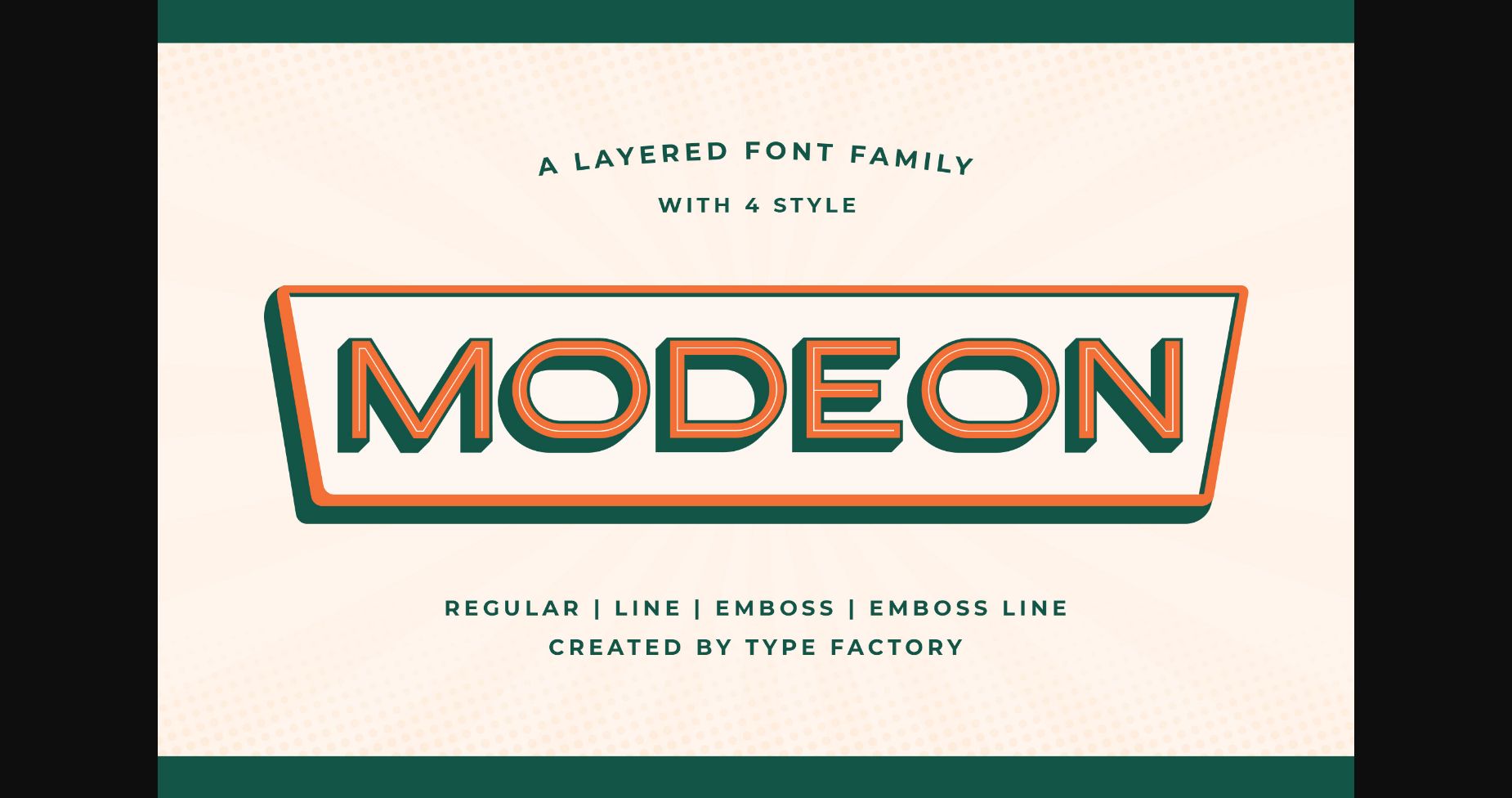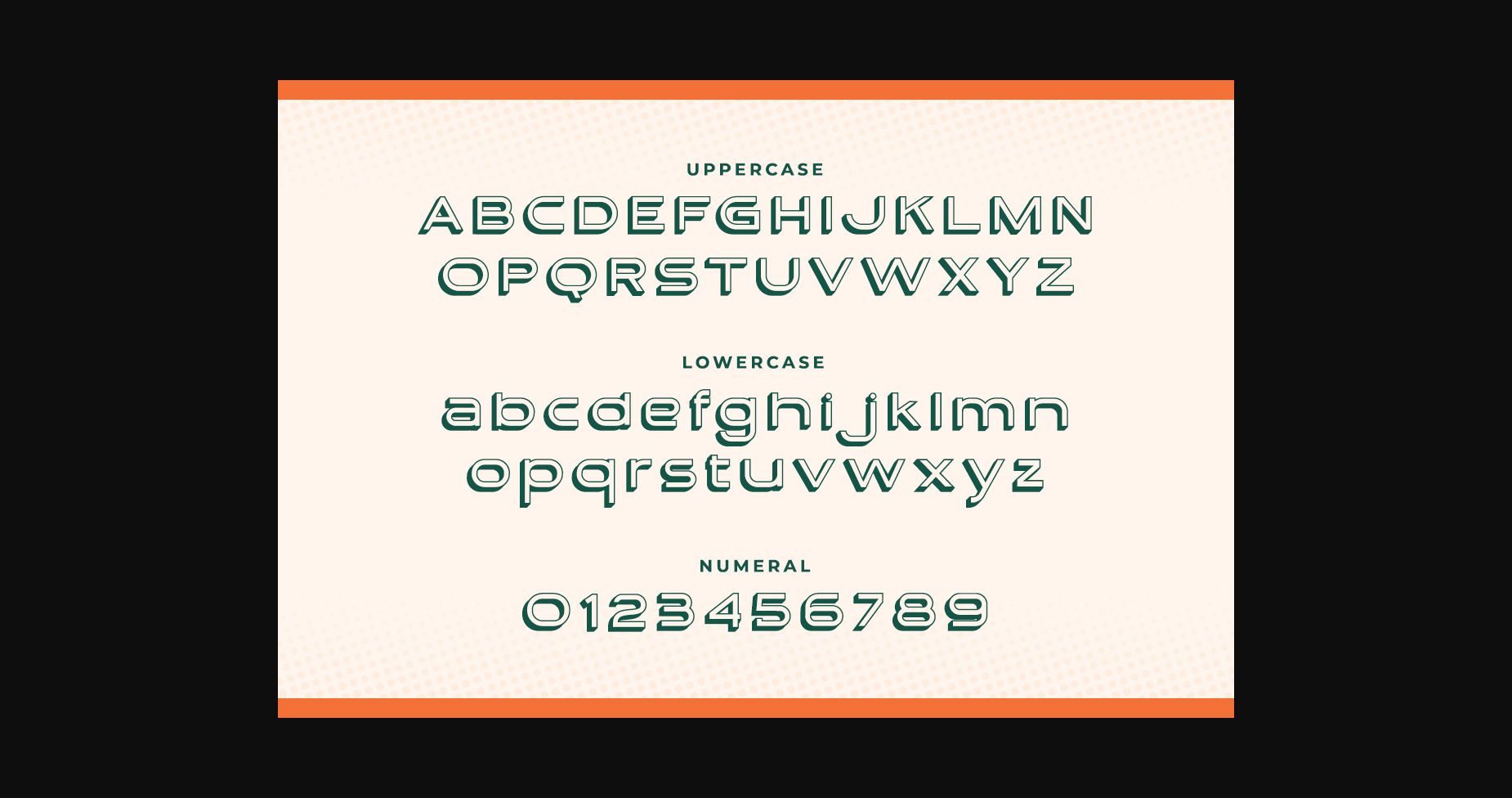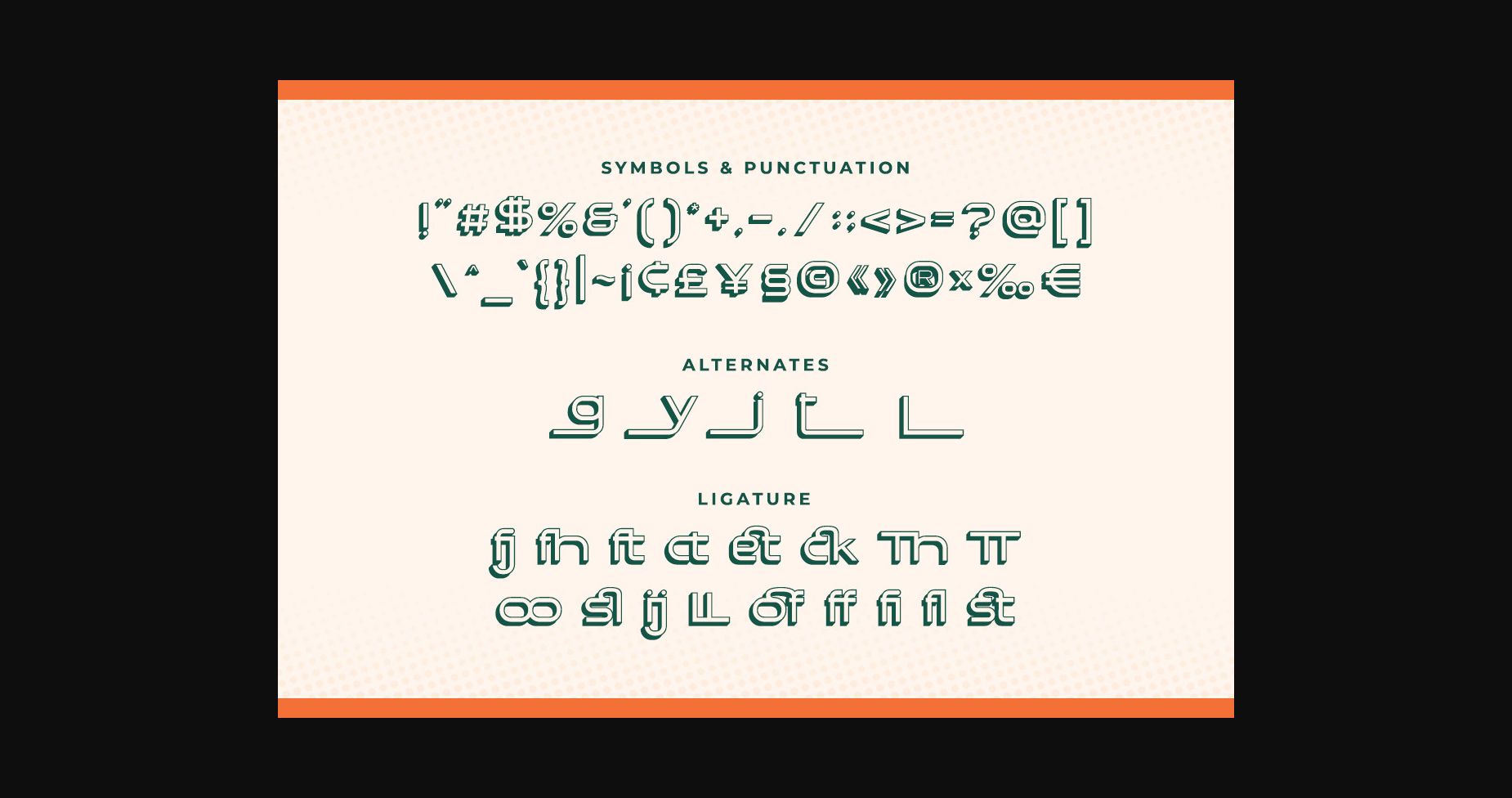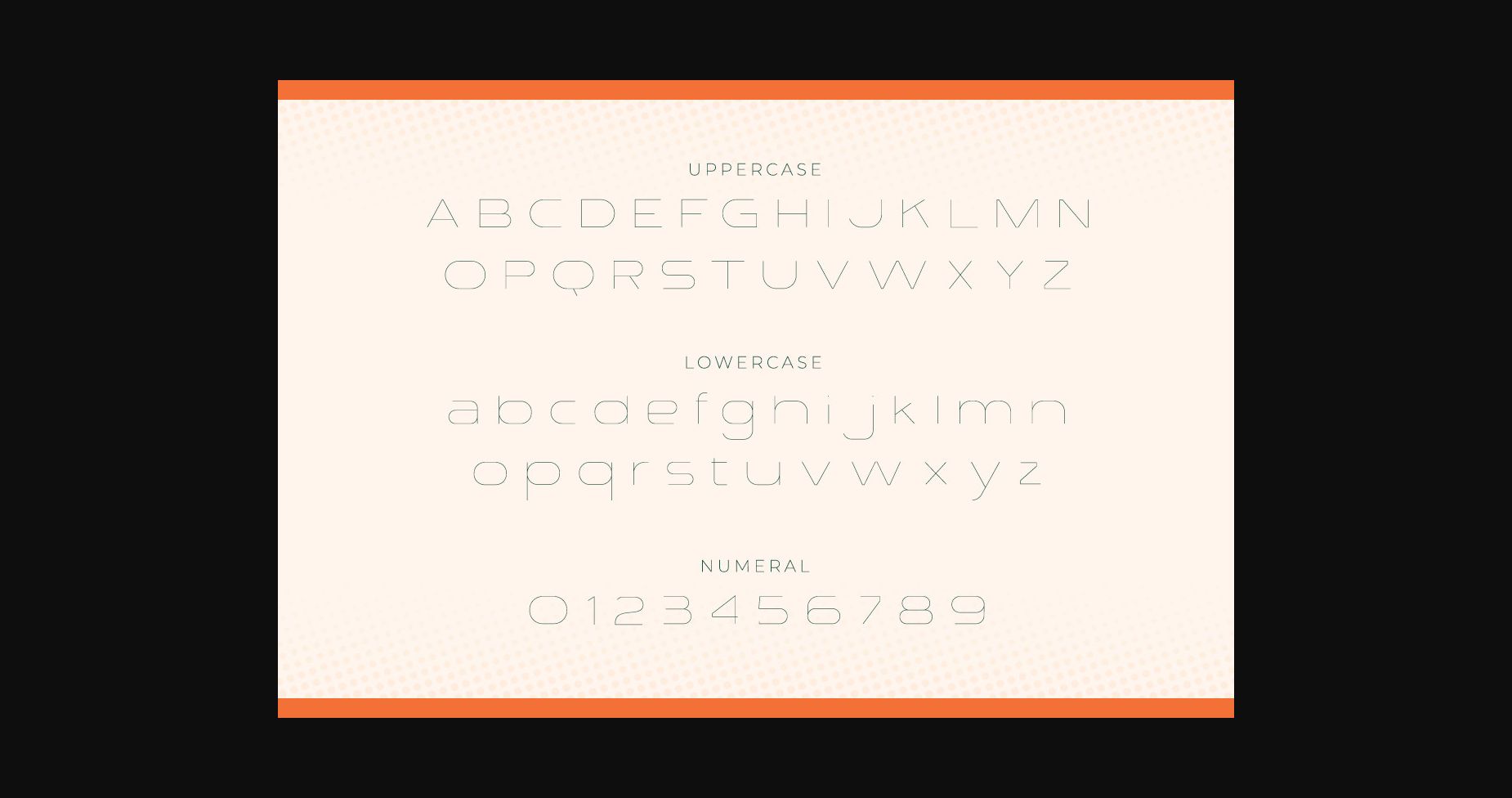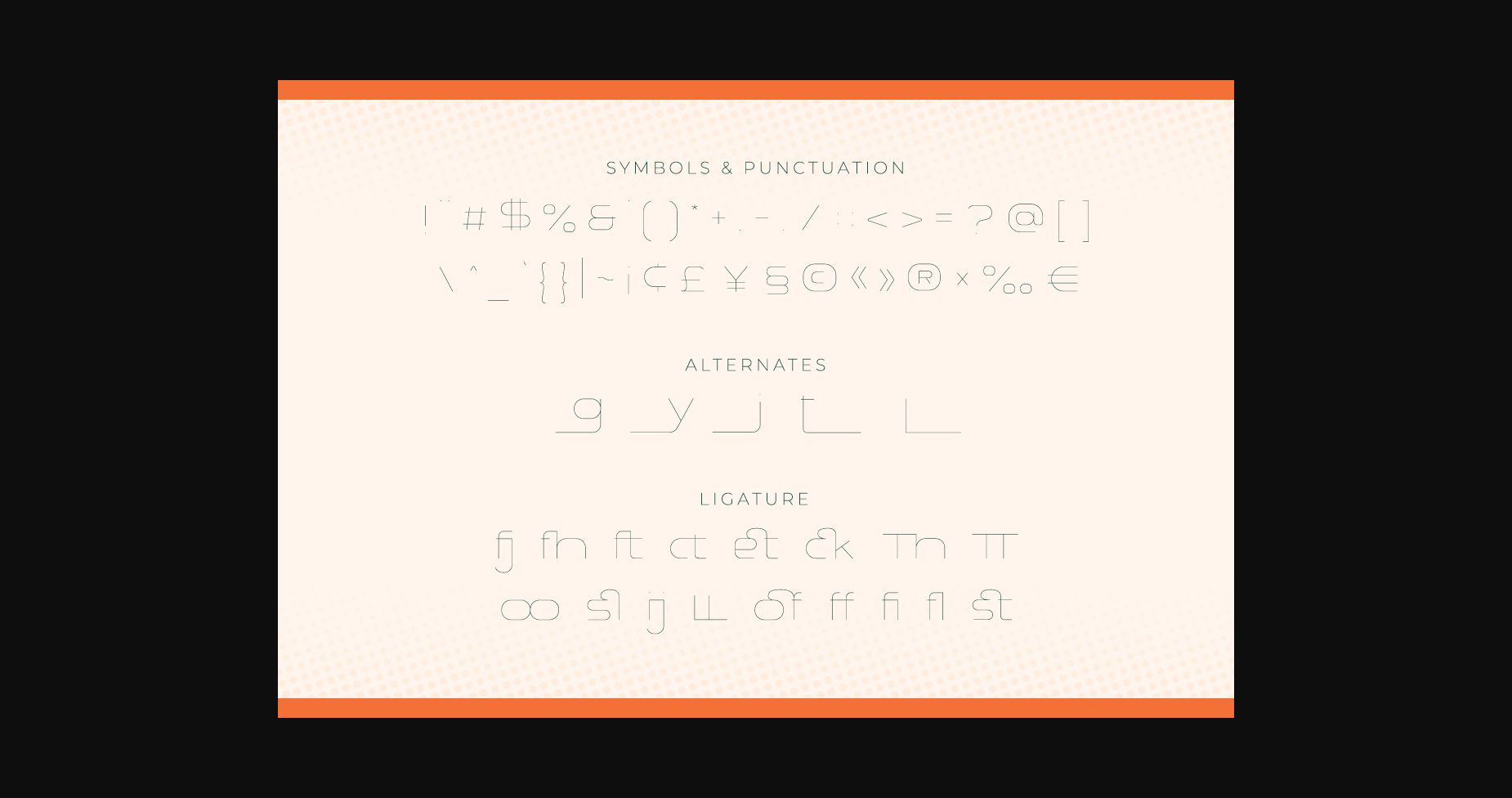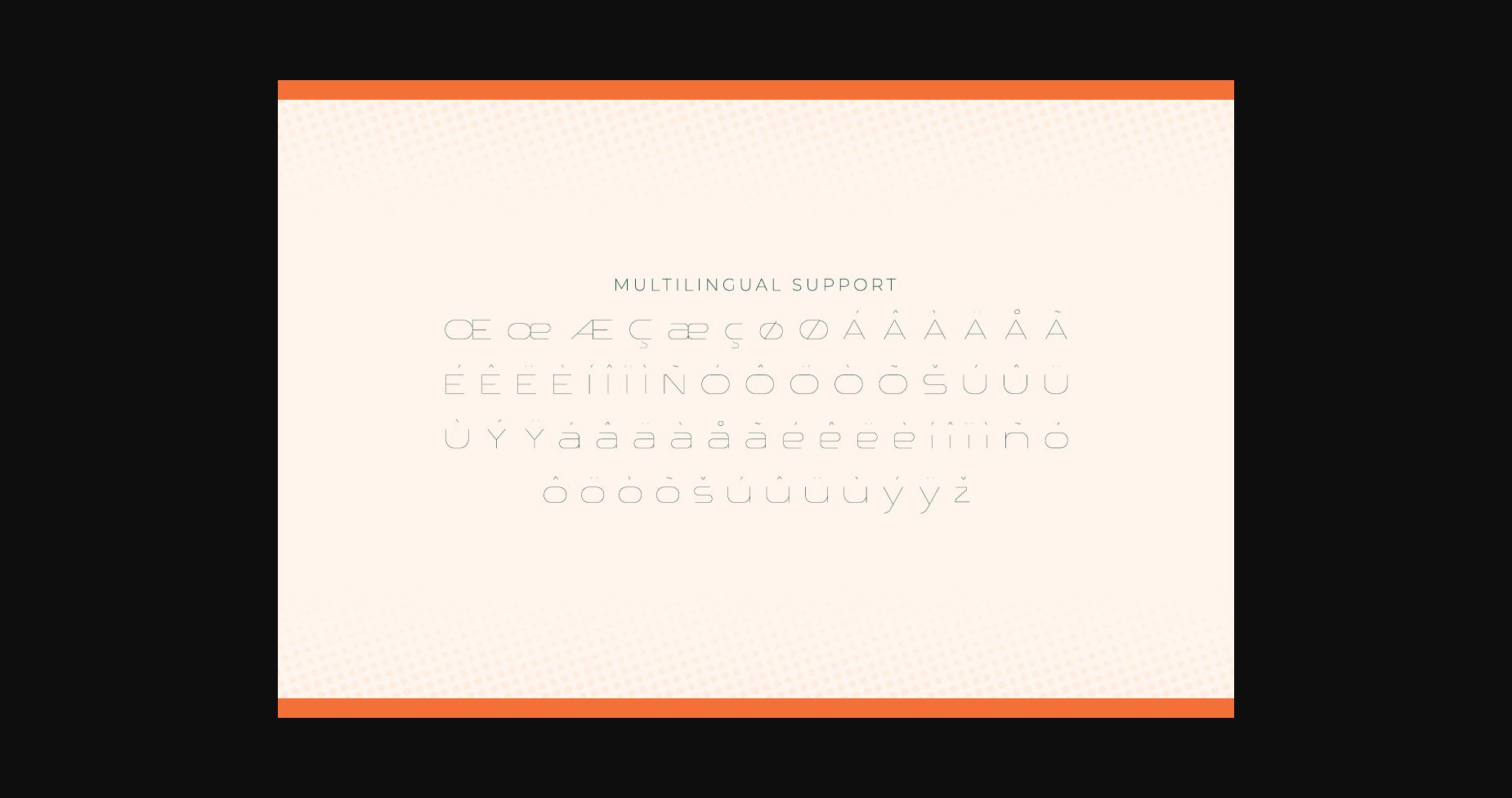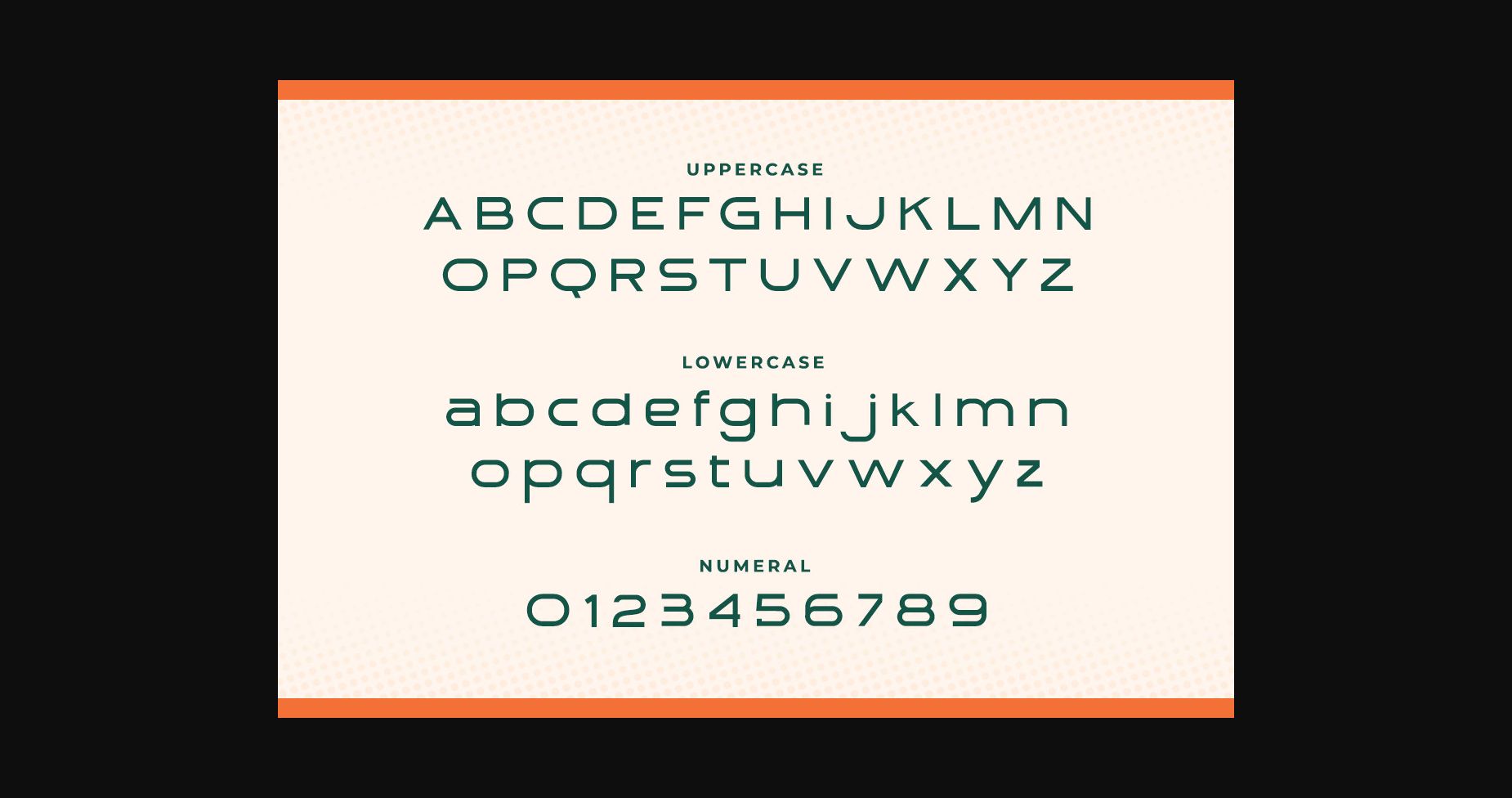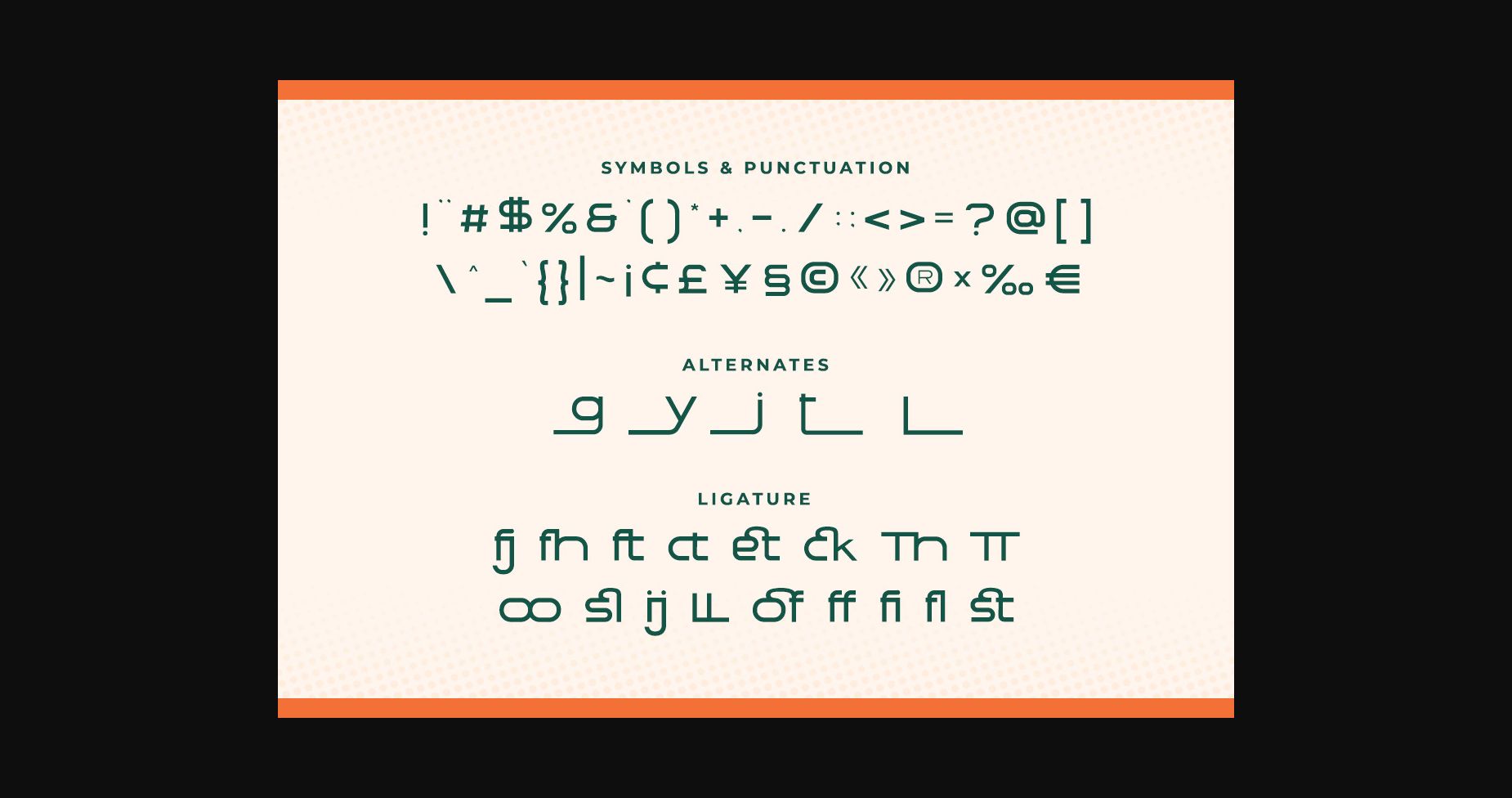
Modeon Font
About Modeon Font
Modeon is a stylish and versatile sans serif font family capable of matching all your design needs. This typeface is suitable for young, passionate designs such as logos, branding, t-shirts, or more.